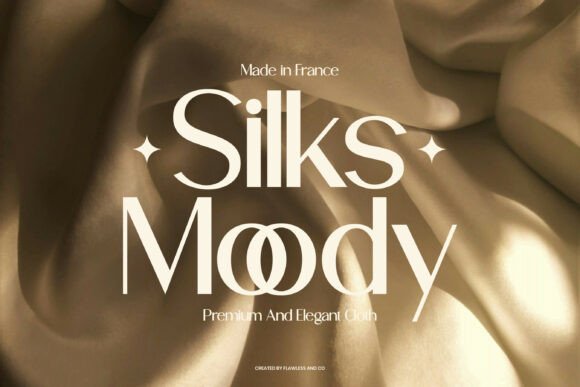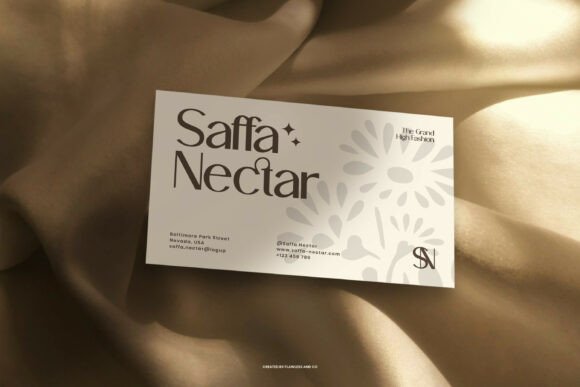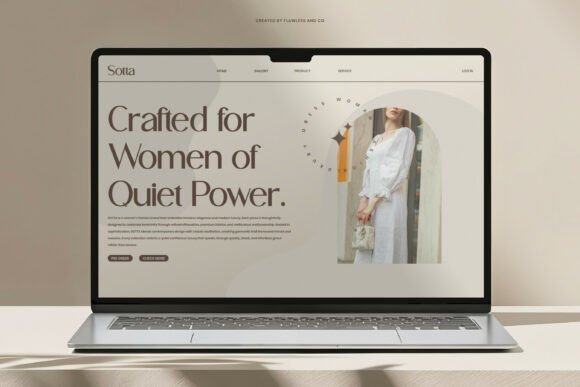
Introduction to Raffas Font
Raffas is an elegant modern sans serif font designed to bring a clean, refined, and professional feel to any visual project.
With its smooth curves, balanced proportions, and minimalist character, Raffas delivers a timeless aesthetic that feels both contemporary and luxurious This font is crafted to work beautifully in branding and logo design, offering clarity and sophistication without losing personality.
Key Features of Raffas Font
Why Choose Raffas Font?
Raffas Font offers exceptional quality and versatility, making it a valuable addition to your design toolkit. Whether you’re creating for personal projects or commercial use, Raffas Font delivers professional results.